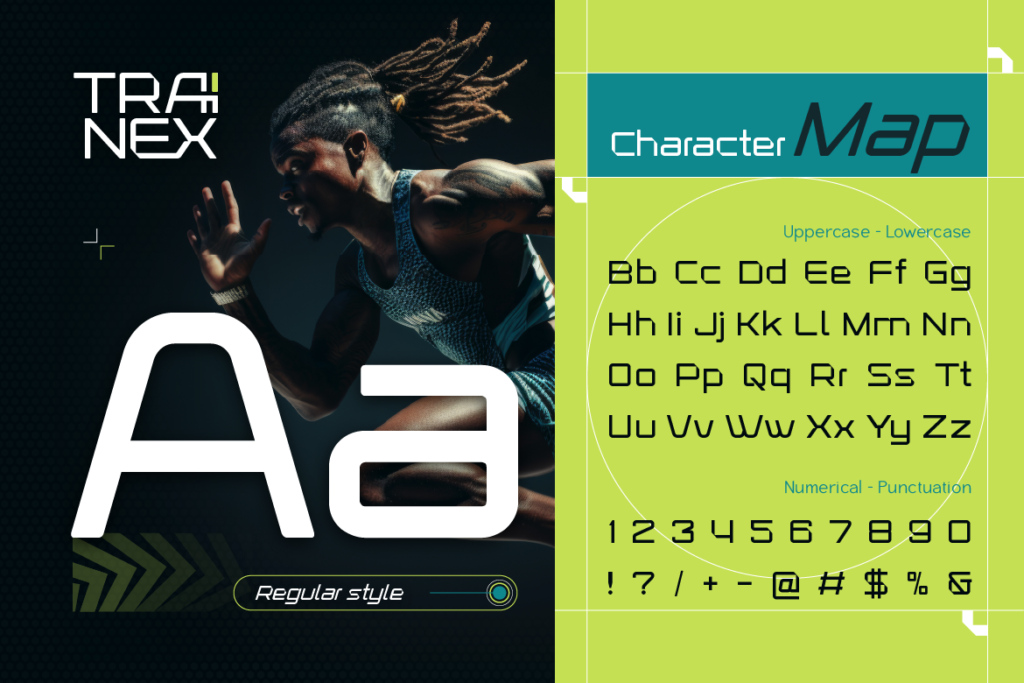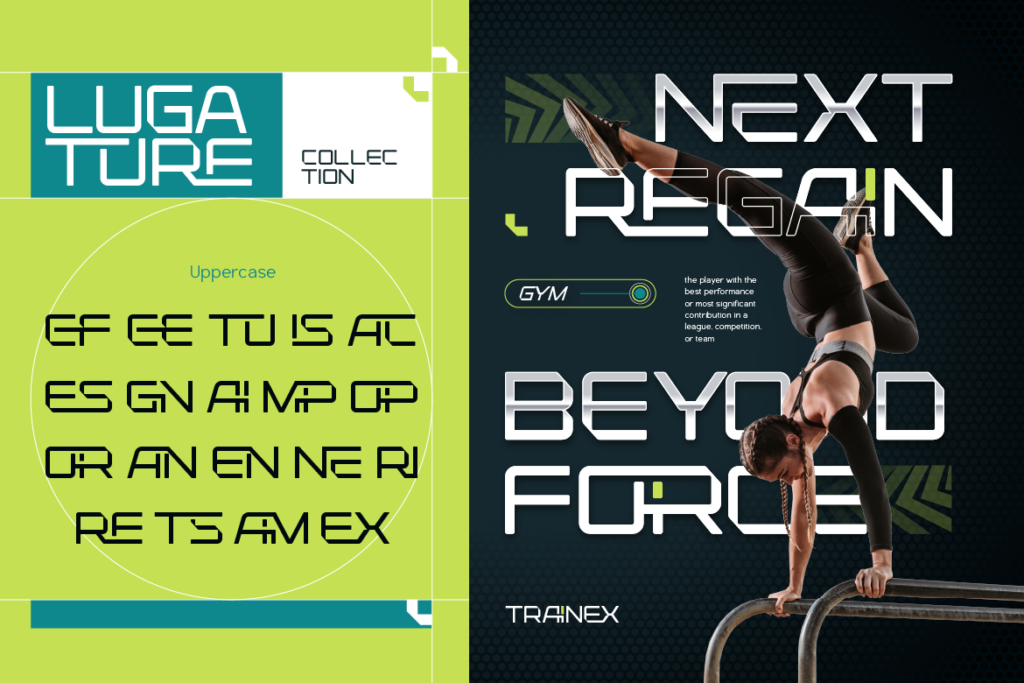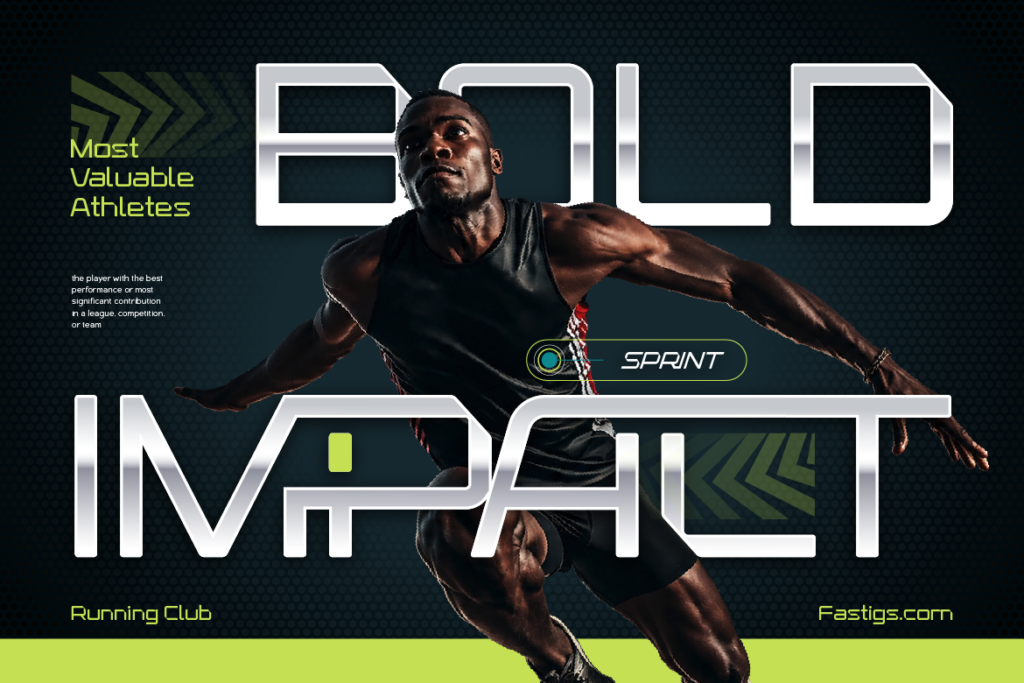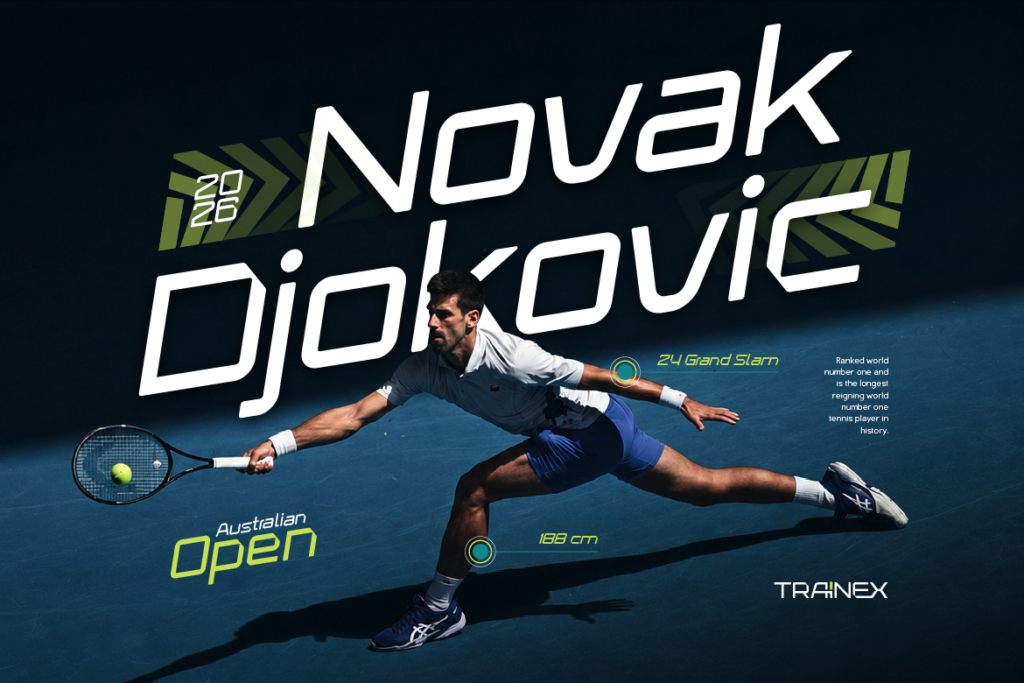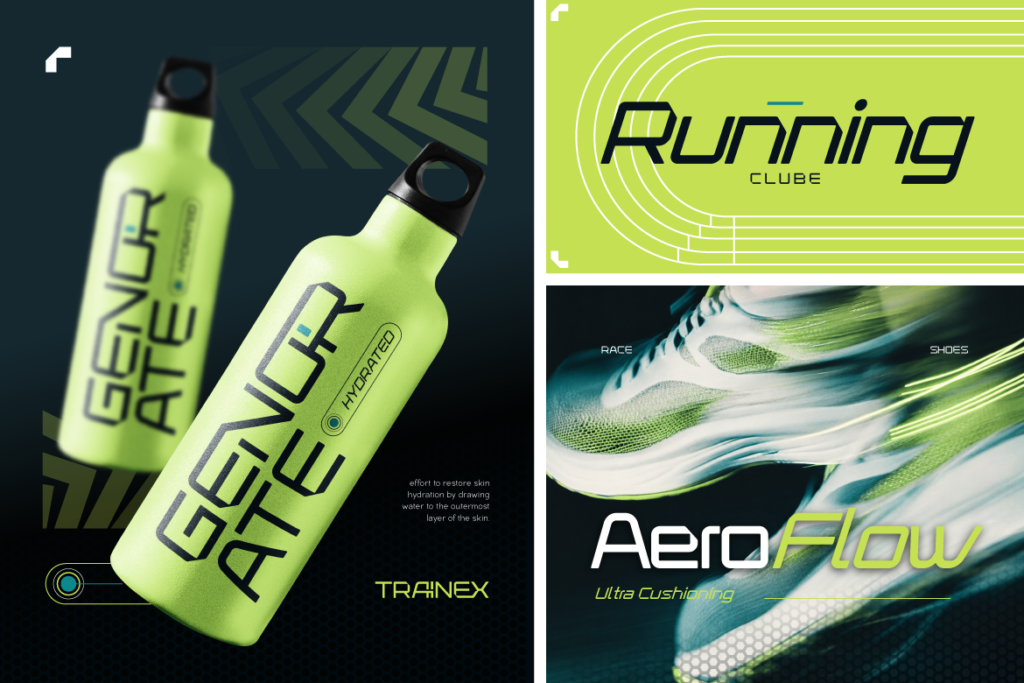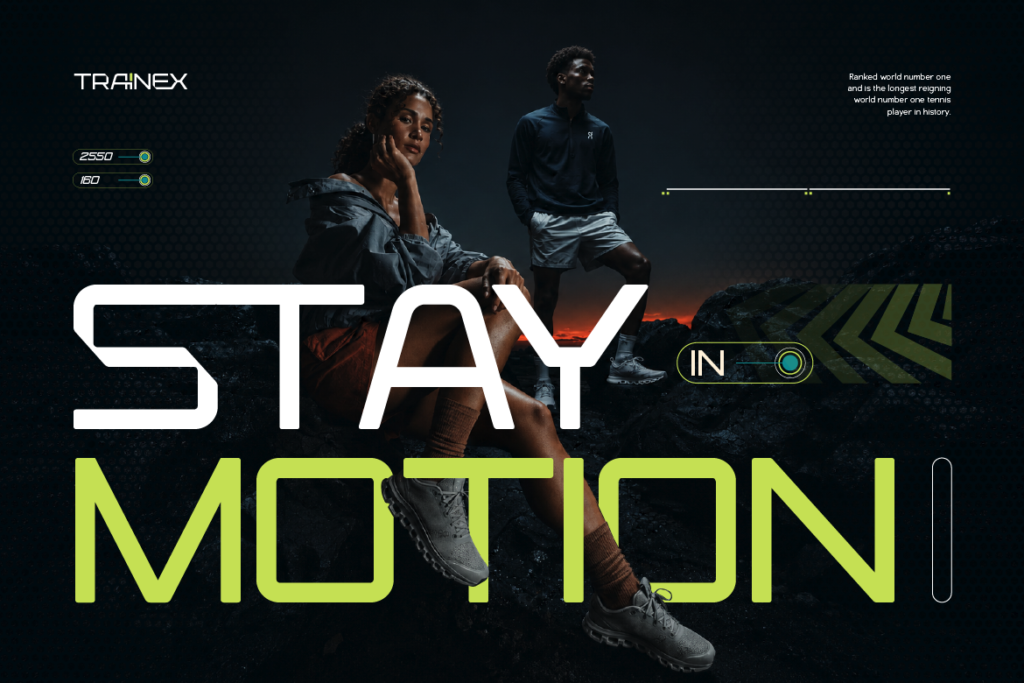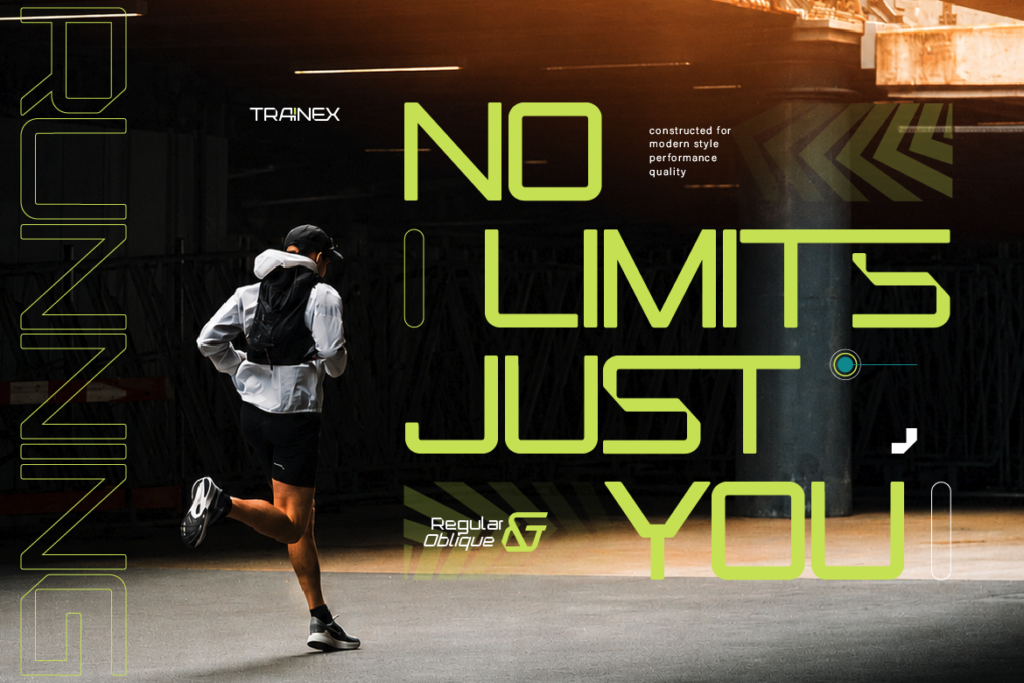
Power, speed, and momentum are essential for athletic branding. Therefore, your typography must convey that same intensity. Enter Trainex, one of our most powerful display typefaces.
Trainex is a modern sport font engineered to give athletic apparel, fitness branding, and automotive graphics a sharp, aggressive competitive edge.
The Design Anatomy of Trainex
Trainex was built with strong geometric precision. Every letterform features sharp angles, solid blocky weights, and forward-leaning momentum that commands attention from the very first glance.
Key features of Trainex include:
- Chiseled Geometric Edges: Conveys strength, structure, and professional athletic quality.
- Impactful Weight Distribution: Designed to stay bold and readable even from a distance.
- Apparel-Ready Outlines: Strong lines that print cleanly on screen printing, vinyl transfers, and embroidery.
Because of these features, your graphics will look crisp on any material.
Perfect Applications for Trainex
Trainex is built for designs that demand maximum energy. For example, it performs exceptionally well in these areas:
- Athletic & Gym Merchandise: Outstanding for varsity hoodies, gym t-shirts, workout shorts, and sports caps.
- Motorsport & Esports Logos: Adds a fast, futuristic feel to racing teams, automotive branding, and gaming channels.
- Fitness Campaign Posters: Perfect for bold promotional banners, gym announcements, and workout supplement packaging.
Additionally, it works great for event banners that need to stand out quickly.
Recommended Font Pairing
When building a brand identity around Trainex, keep your supporting text simple.
For instance, pair this heavy modern sport font with a clean Sans Serif font. Using a simple font for minor details ensures your overall layout remains clean and easy to read.